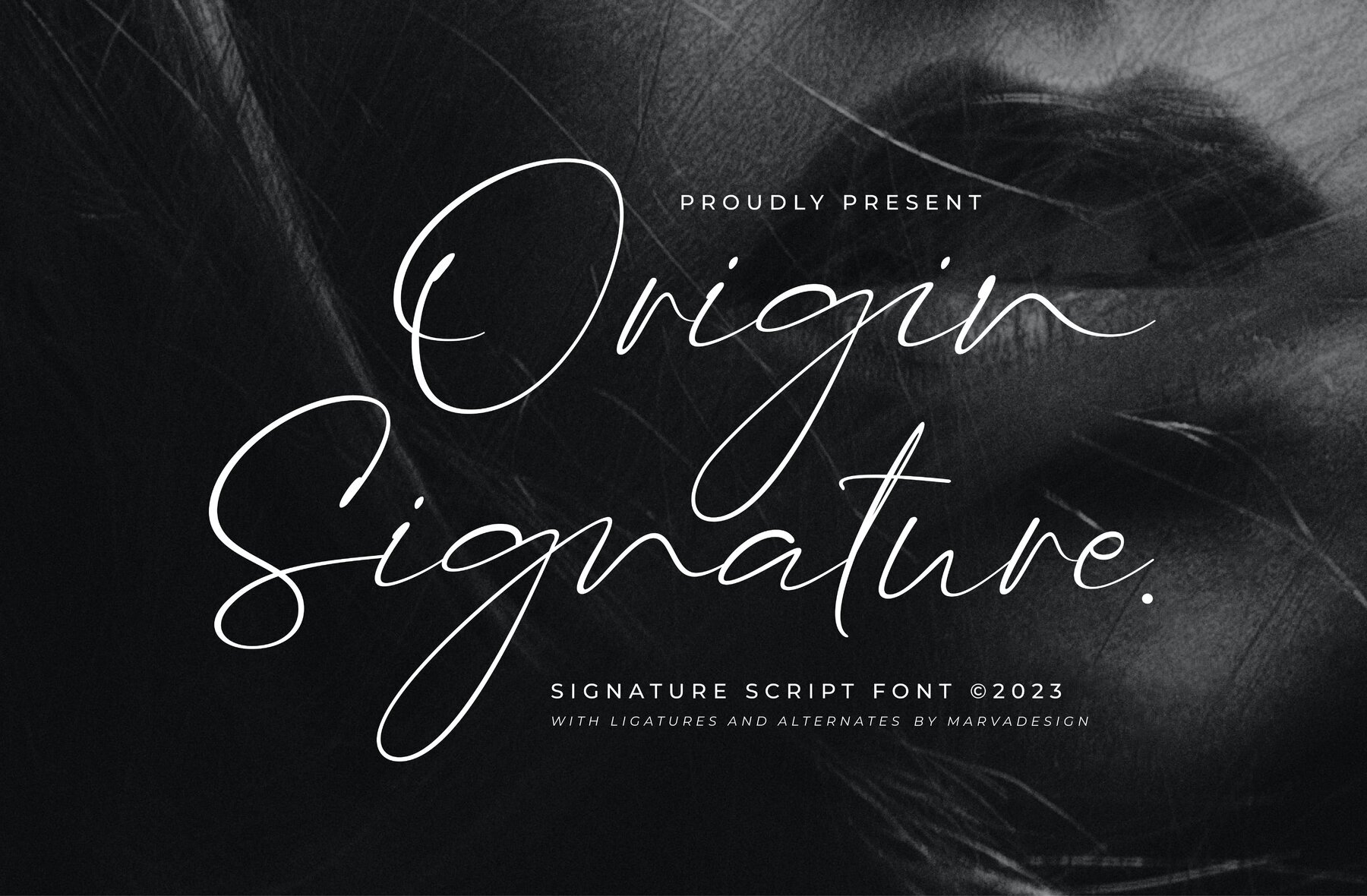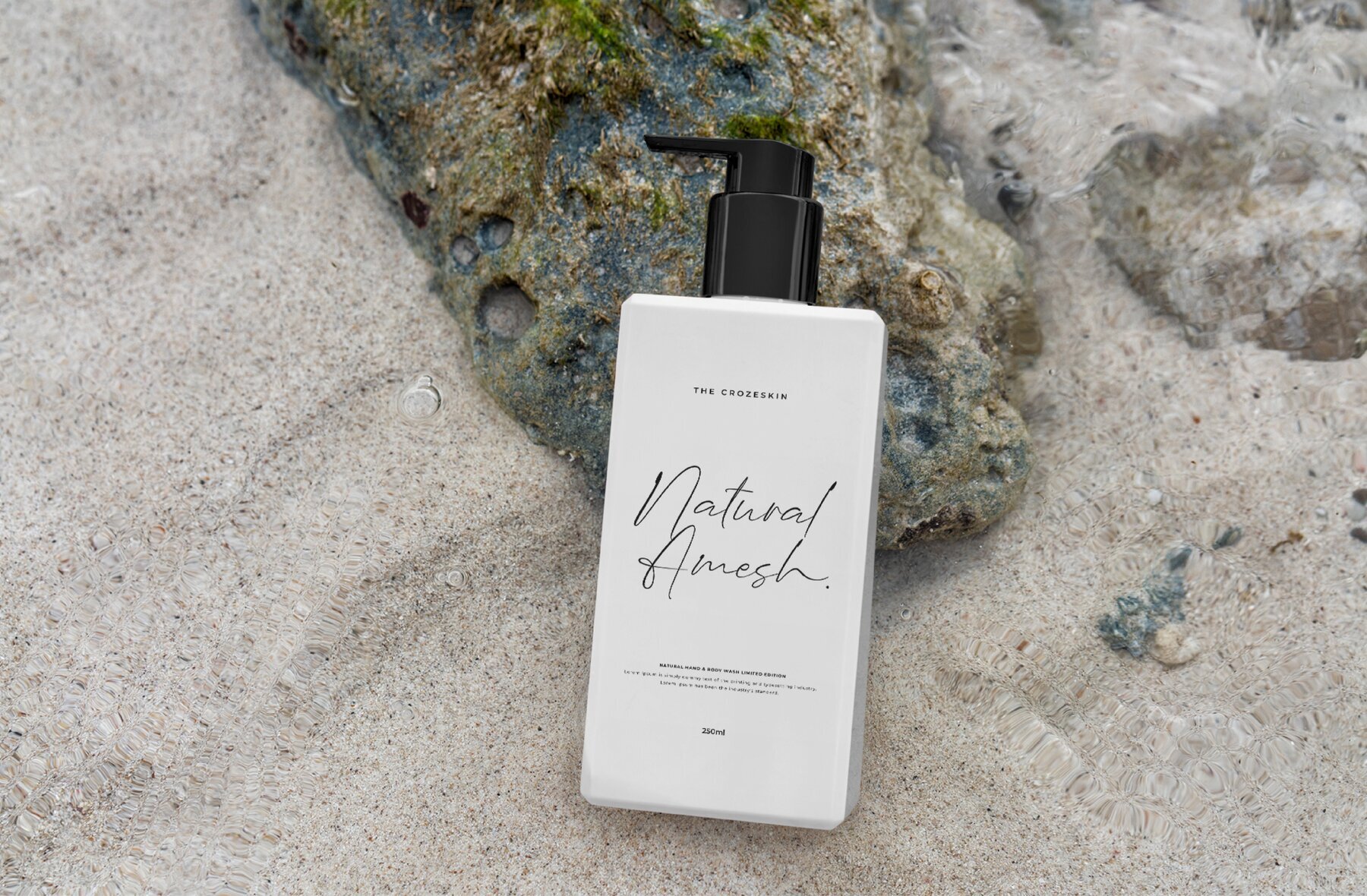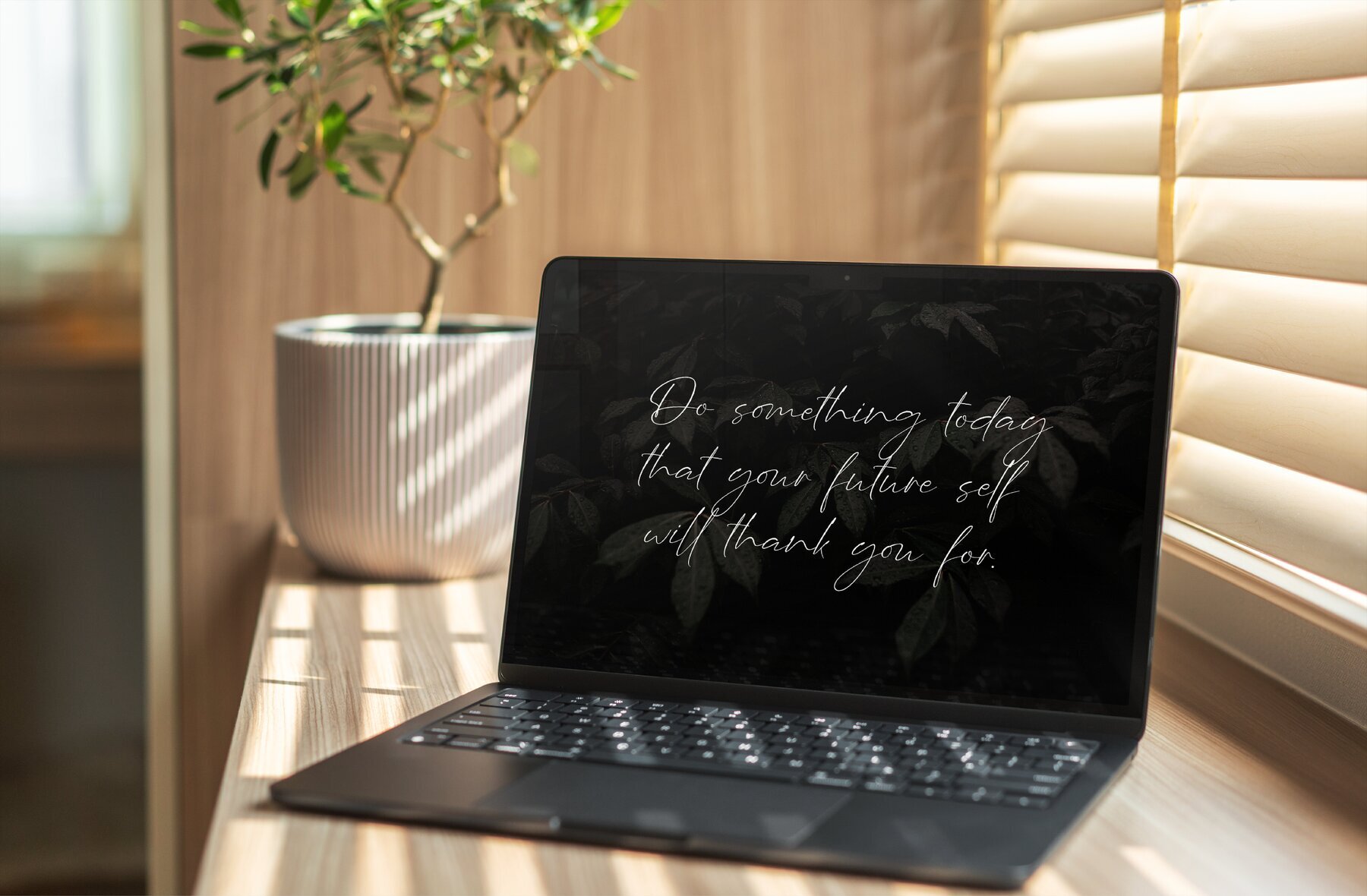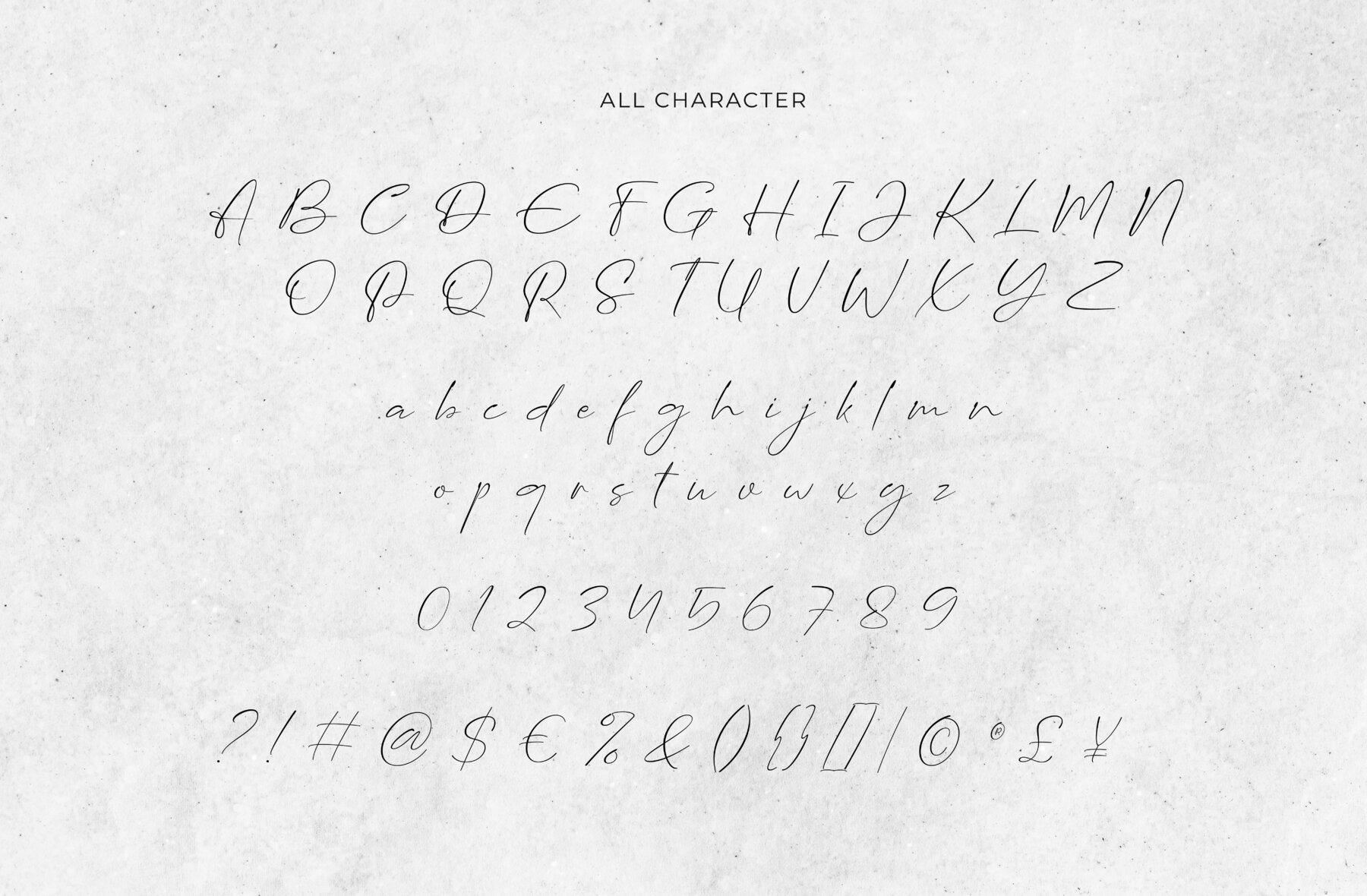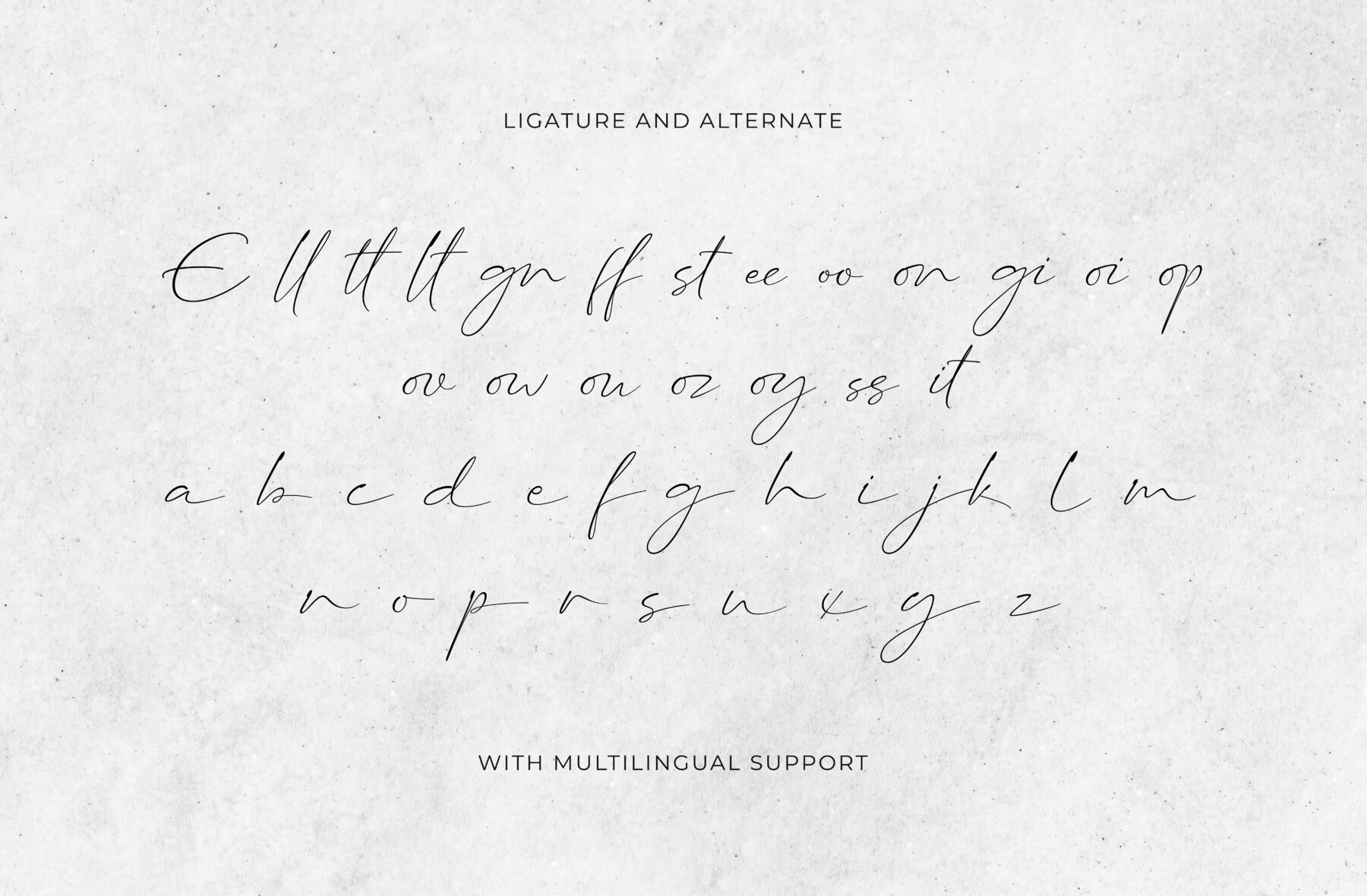
Origin Signature Font
Origin Signature Regular
The Origin Signature Font is a refined script font that adds a touch of authenticity to any display project. Perfect for branding endeavors including logos, templates, and products, it stands out in a variety of contexts.Origin Signature Font: Authentic Script Design